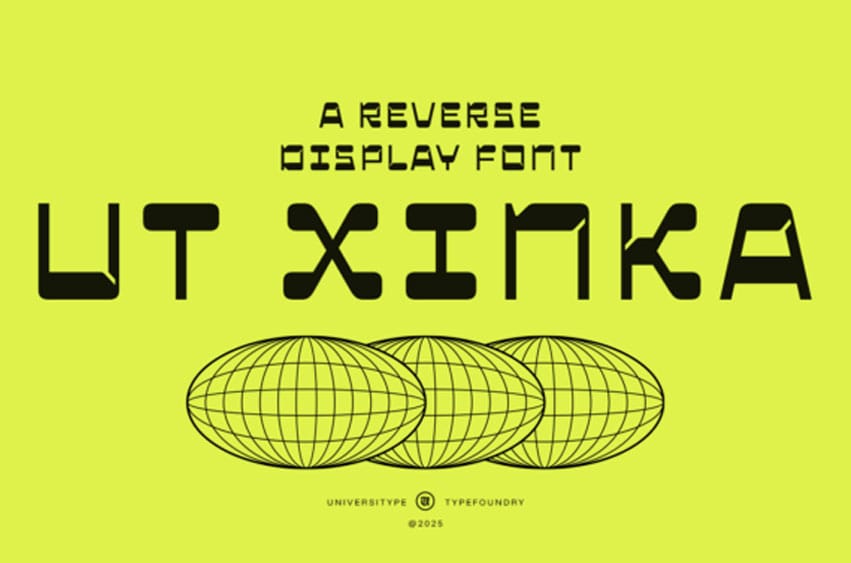
Ut Xinka Font Unleash the power of innovation and individuality with UT Xinka, a distinctive reverse-contrast display font. Offering a unique, vaguely futuristic twist in typography, UT Xinka embodies robust forms and surprising angle cuts, transforming even the simplest words into striking visual statements. Its effortless tech-playfulness captivates onlookers and seizes attention without trying.
Boasting over 300 glyphs and an array of stylistic alternates, UT Xinka gives you the freedom to be creative, rupture the norm and fast-track distinct, character-infused typography, ideal for standout brands. Embrace this transforming font that thrives under pressure.
Target Audience:
UT Xinka is the silent, but powerful friend of:
– Artists and designers with a keen eye for futuristic tech-savvy visuals
– Creative studios seeking a unique, top-of-the-line display font
– Streetwear brands, gaming enthusiasts, music event managers, and digital creators
– Devotees of structured bedlam in typography
Inception of UT Xinka sprouted from a simple thought: What transpires when traditional contrast is inverted and the framework is taut yet lively? The progeny is a blend of retro tech formations, modular signs, and an infusion of industrial sci-fi flair. Angled cuts mirror covert connectors embodying the secret structure behind machinery, while the rounded endpoints impart a warm touch, making it welcoming even in dominant settings.
Usage Suggestions:
UT Xinka excels in:
– Large headlines and posters
– Branding for tech, entertainment, and lifestyle commodities
– Music album covers, gaming interfaces, UI titles
– Merchandise, clothing, and packaging
– Experimental layouts demanding a strong persona
Take it large, extend it wide, stack it high, this font revels in non-traditional layouts.